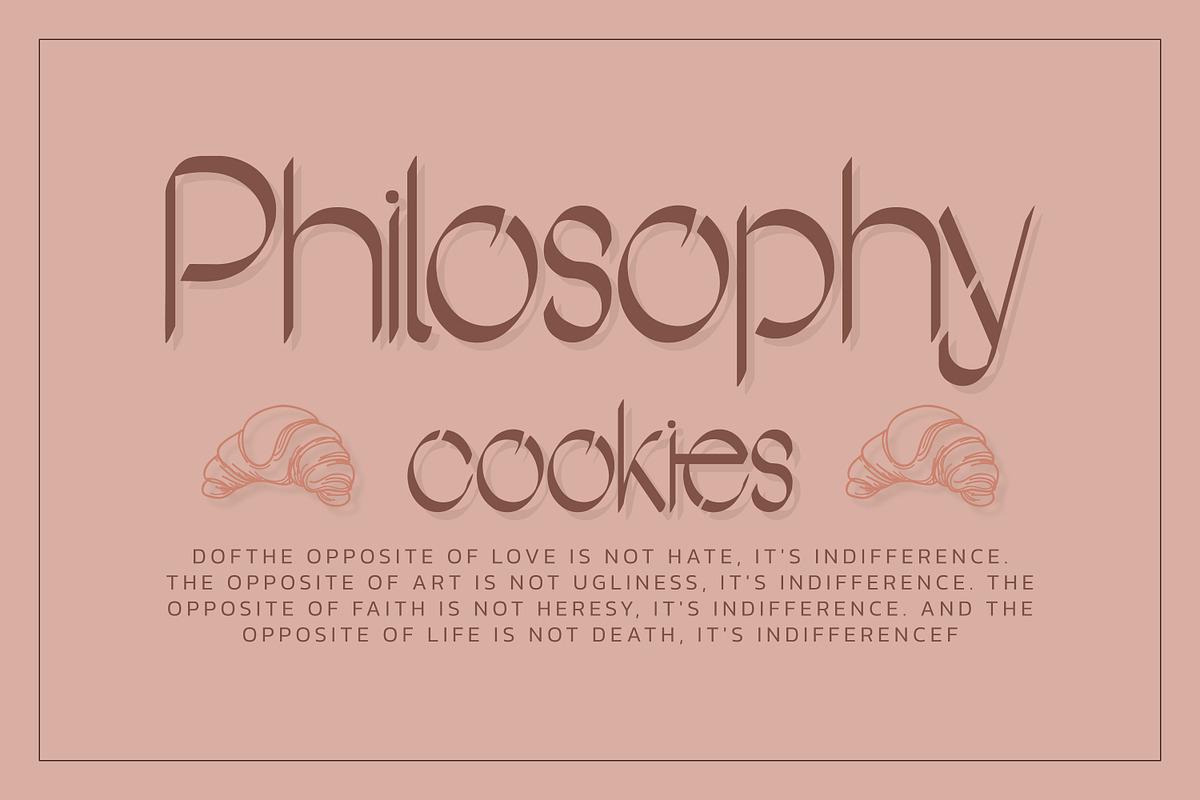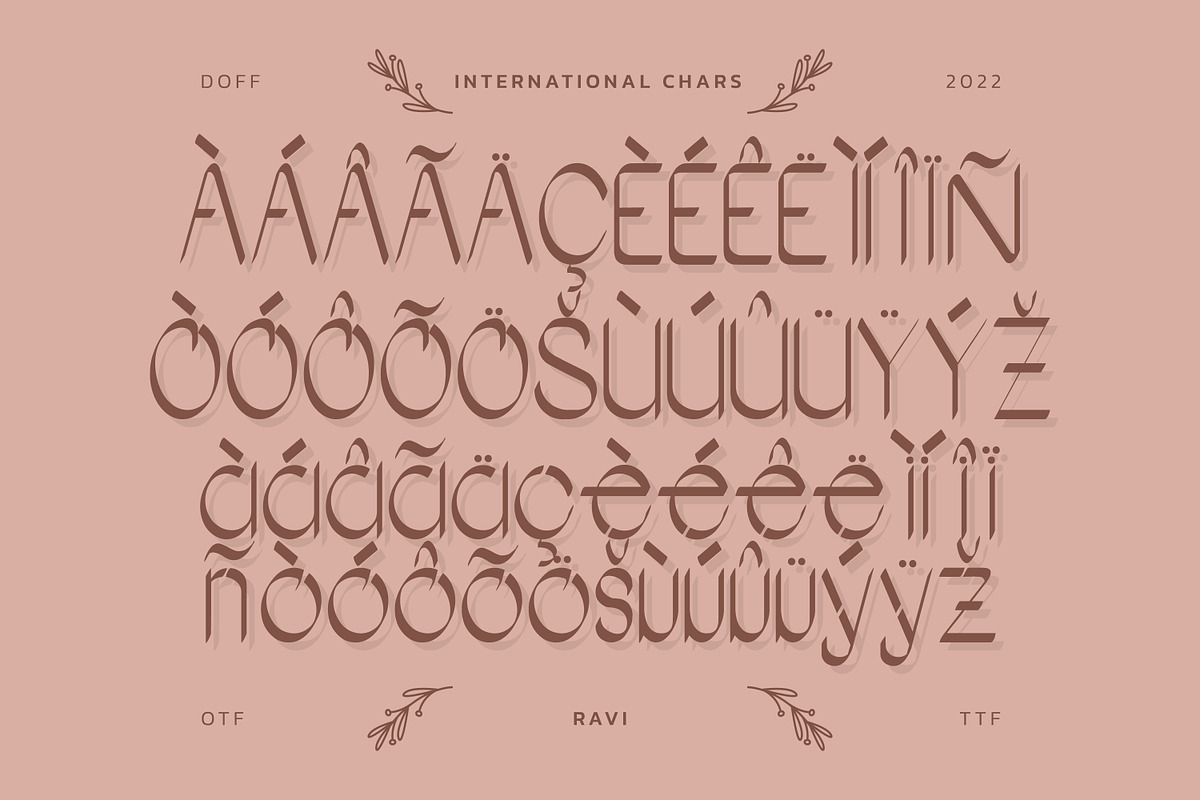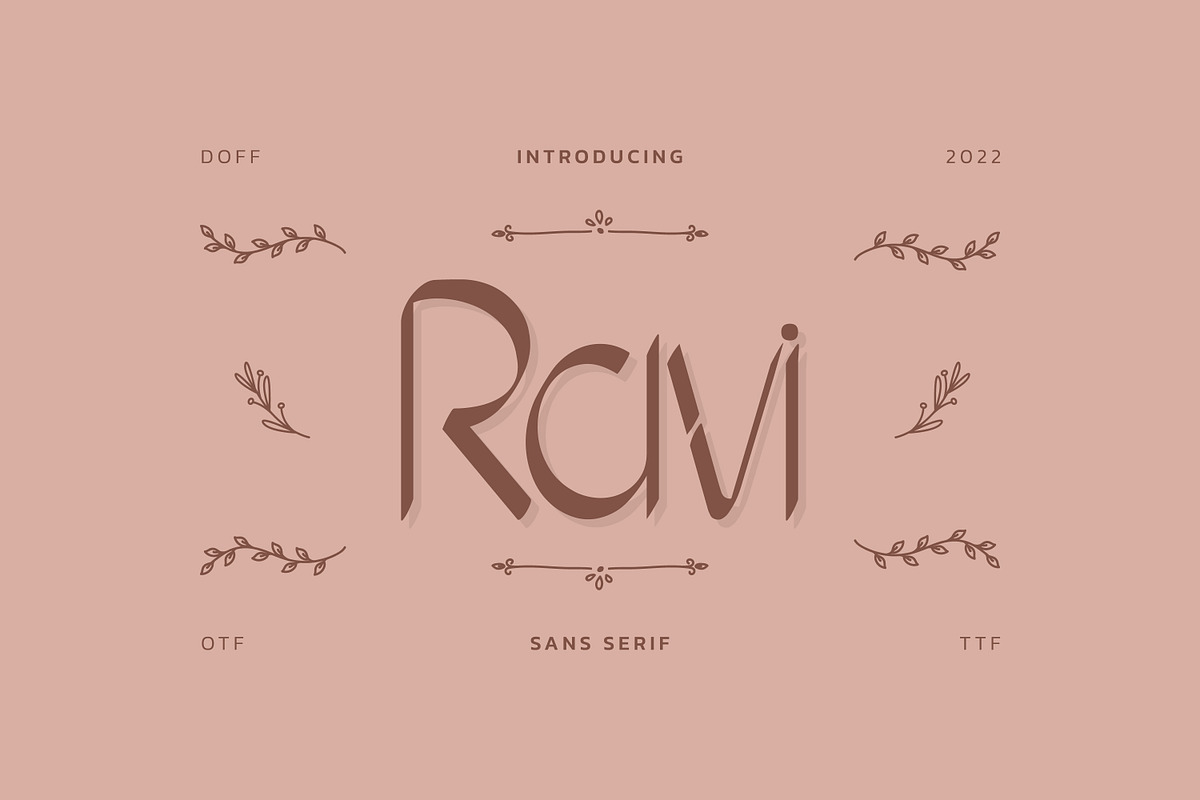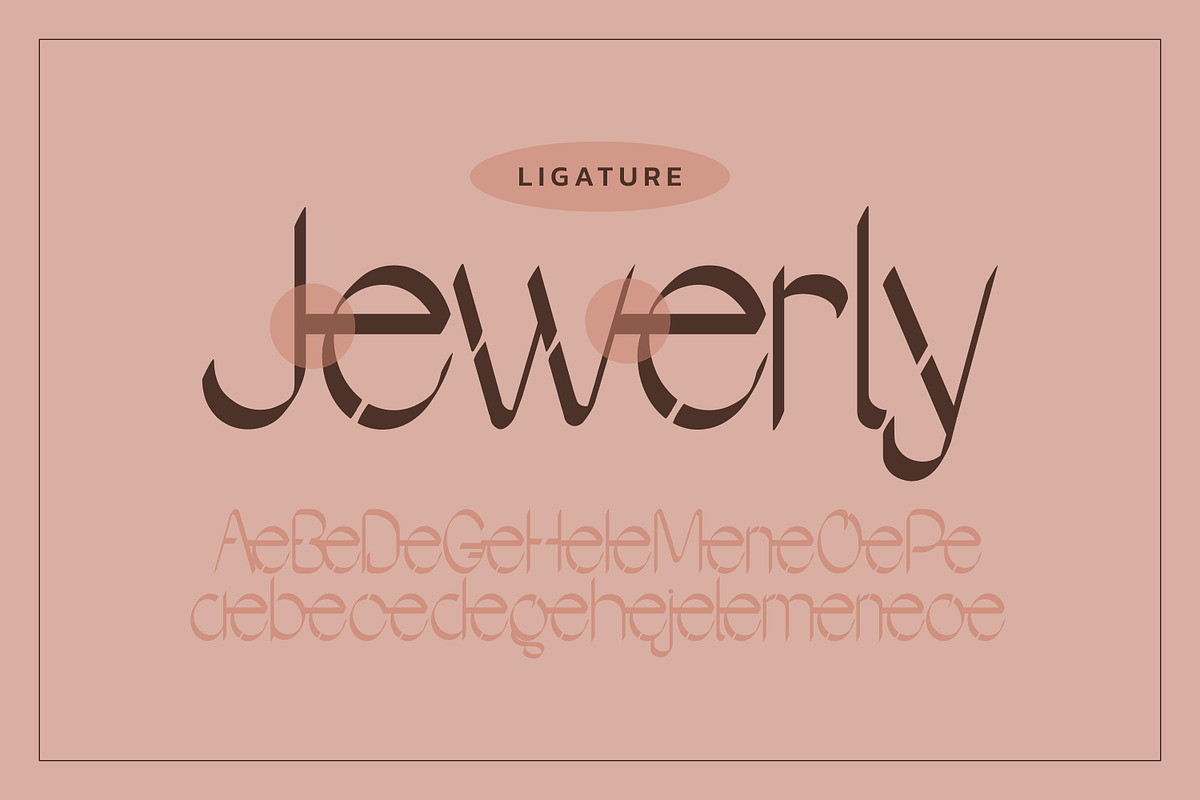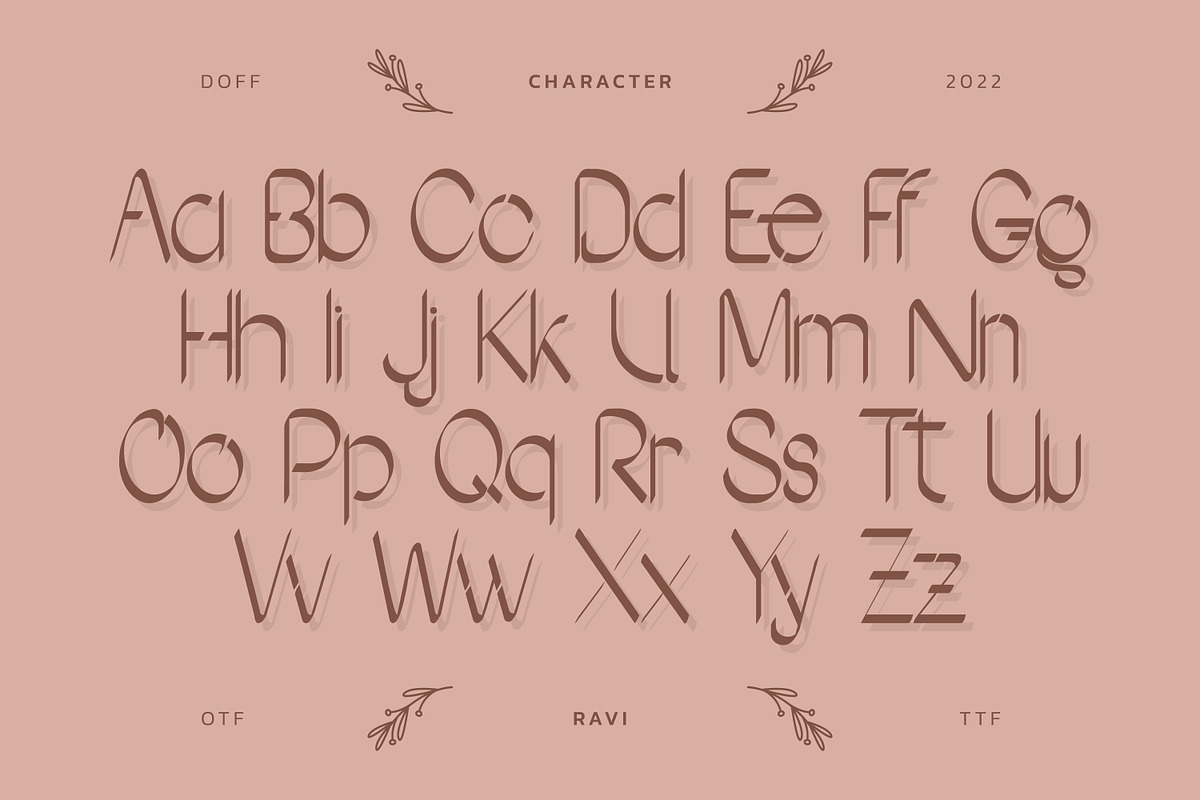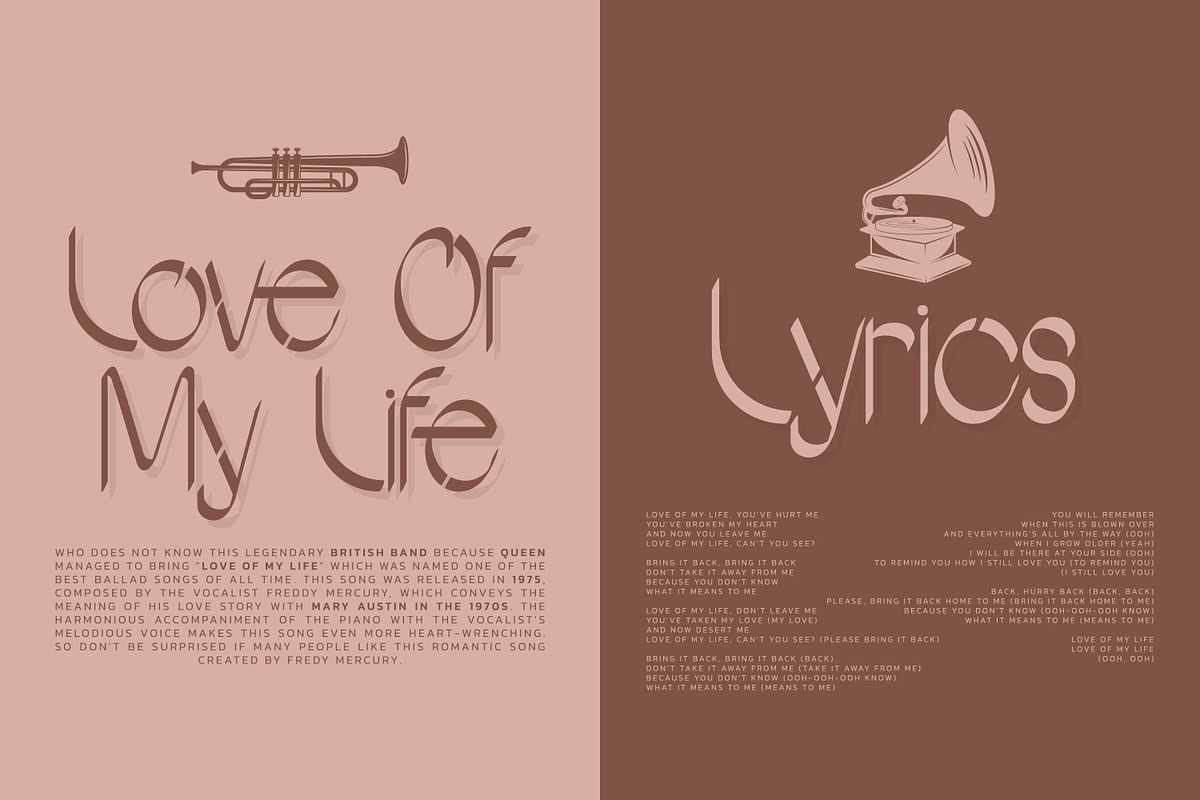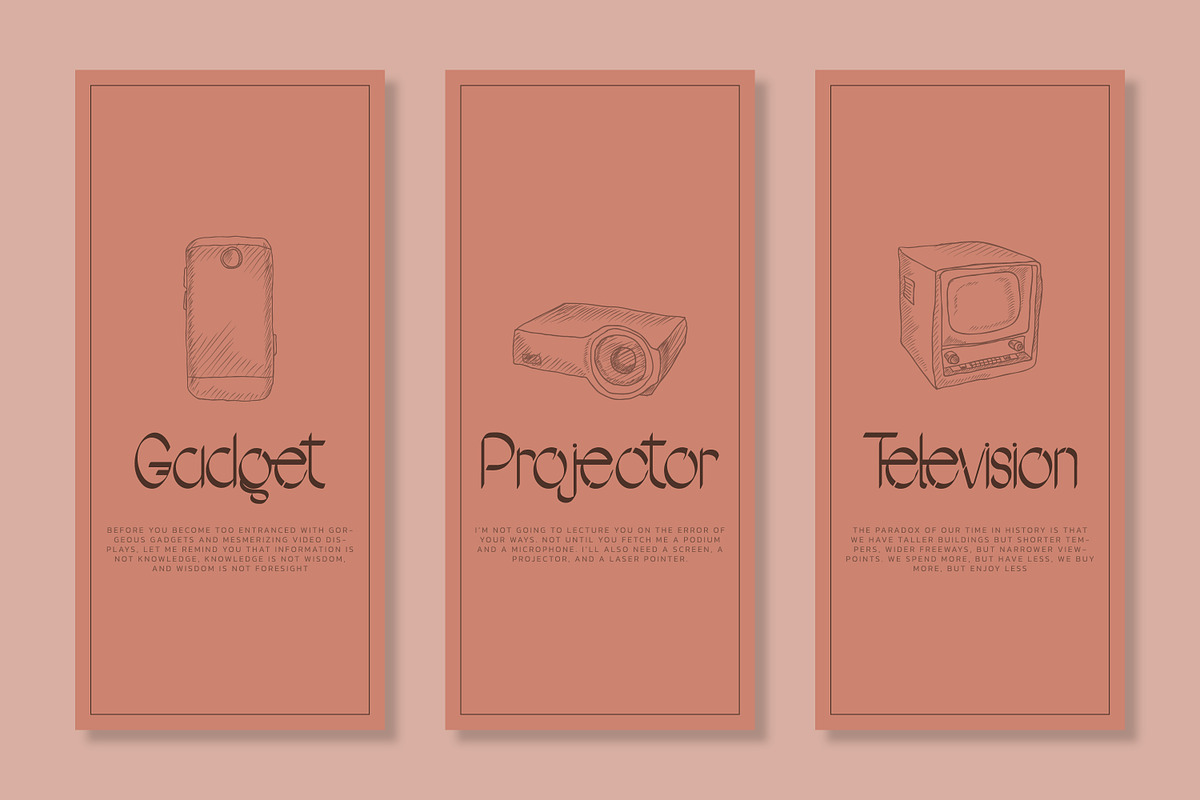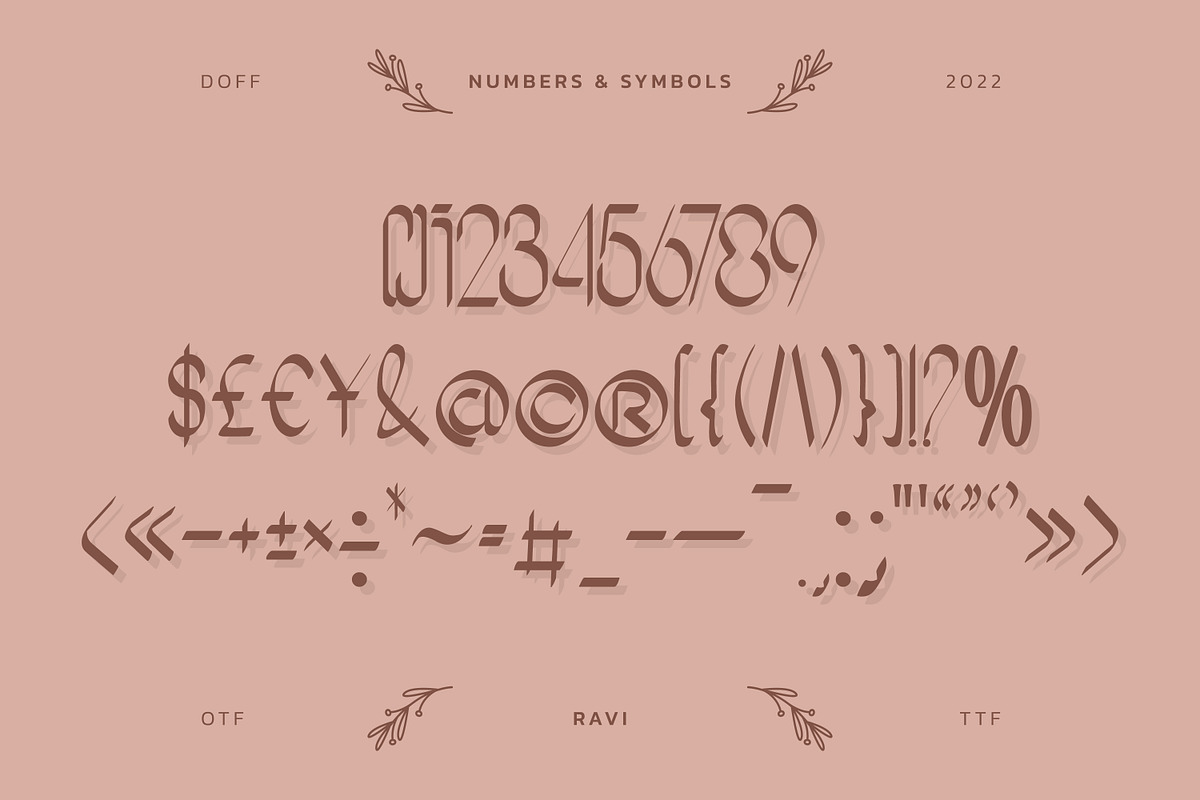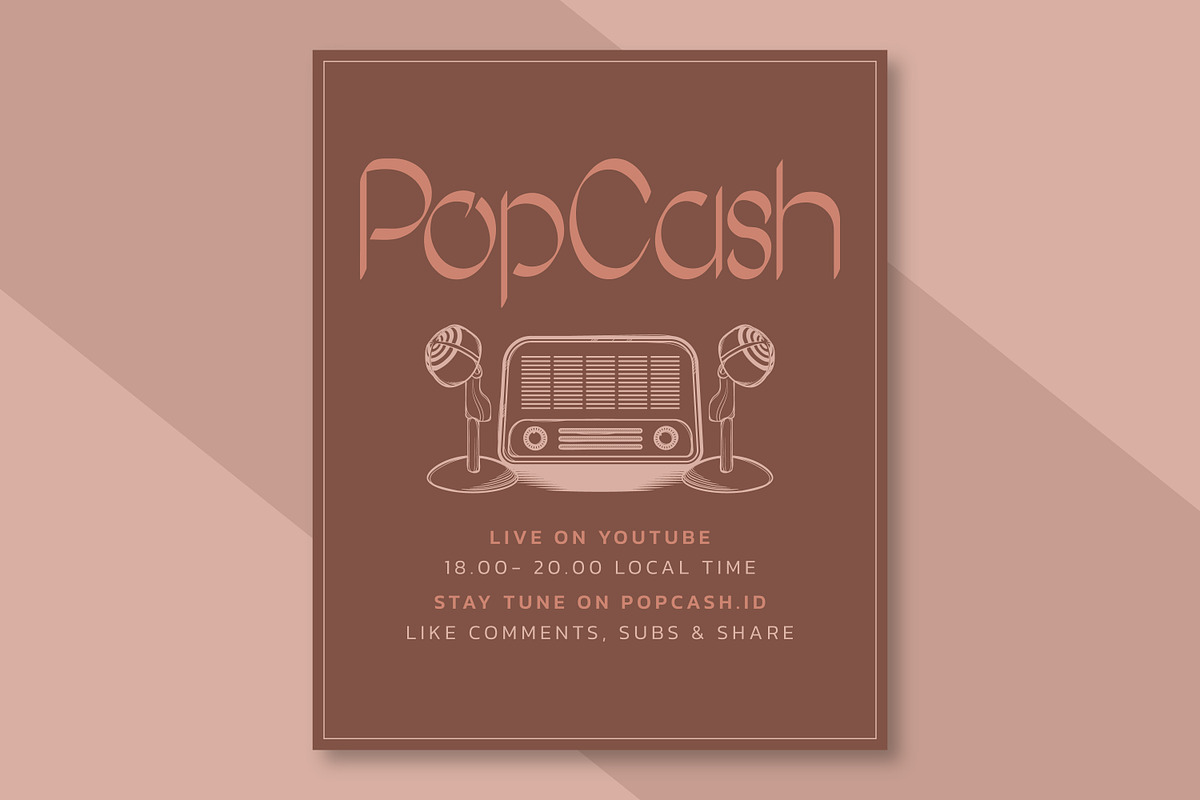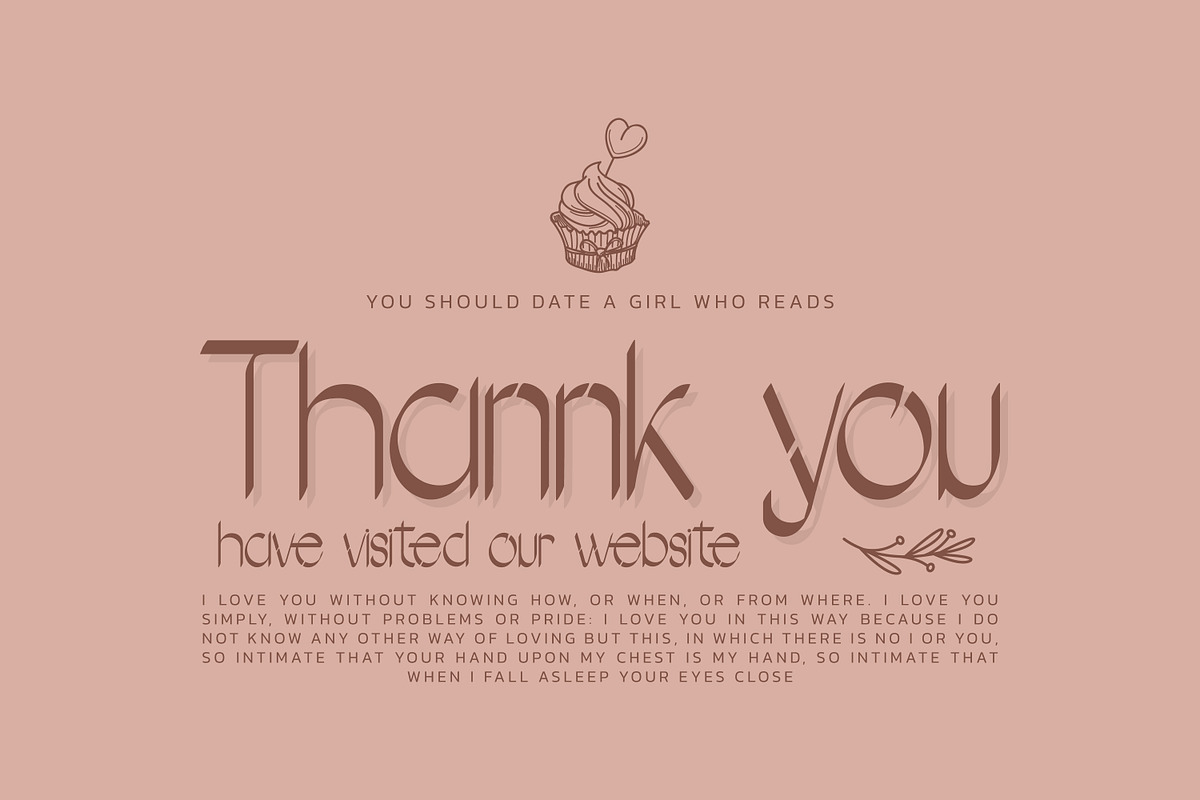
Ravi Sans Serif
Ravi is a modern sans serif font. It will elevate a wide range of crafting ideas, from cards, to branding, labels and much more. It is created with sharp and thick-thin different creature in each alphabet.